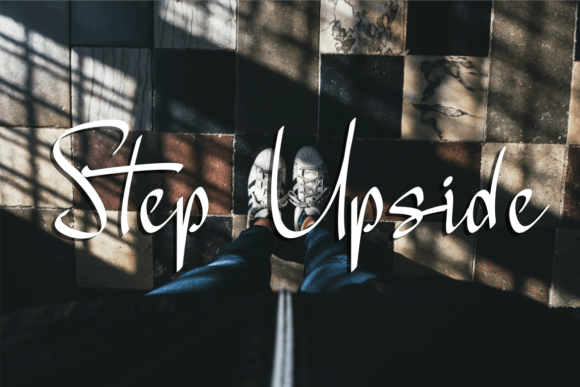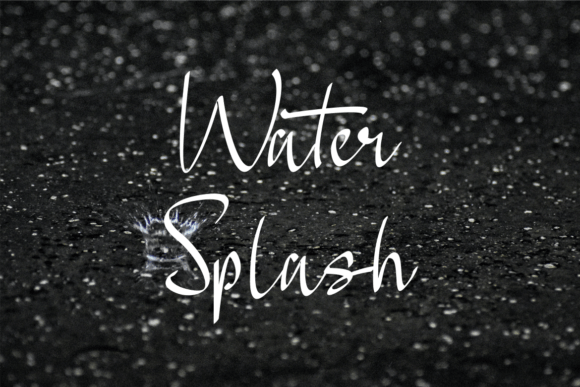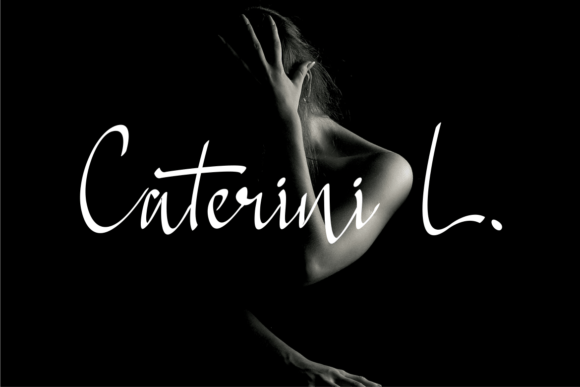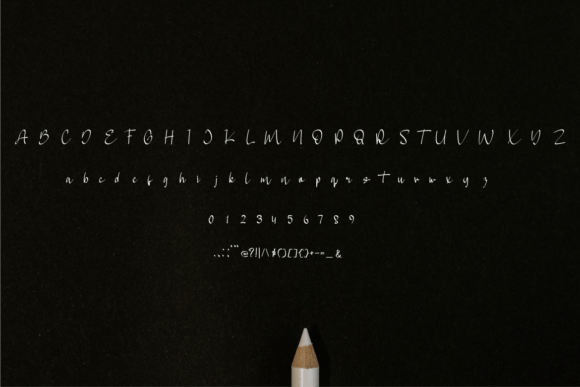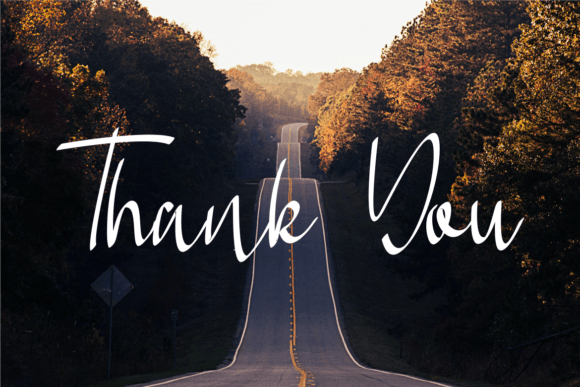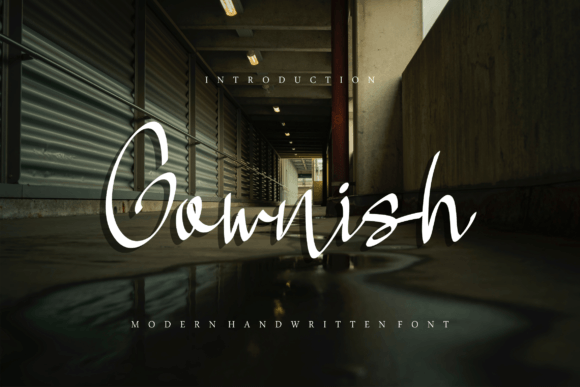
Gownish Font: Elevate Your Designs with a Cool and Modern Handwritten Signature Font
In the world of typography, a font can make or break a design. As a designer or crafty enthusiast, you’re constantly on the lookout for unique and versatile fonts to give your creations an edge. If you’re searching for a font that can elevate your designs and make them stand out, look no further than Gownish Font. In this article, we’ll dive into the features and benefits of Gownish, a cool and modern handwritten signature font that’s sure to become a valuable asset in your font library.
What is Gownish Font?
Gownish is a modern handwritten signature font that’s perfect for adding a personal touch to your designs. With its elegant and fluid strokes, Gownish exudes a sense of sophistication and style. Whether you’re working on a branding project, a wedding invitation, or a social media graphic, Gownish is the perfect choice for designers and crafters looking to add a touch of elegance to their work.
Key Features of Gownish Font
- Handwritten Signature Style: Gownish boasts a beautiful, handwritten signature style that’s perfect for creating unique and eye-catching designs.
- Modern and Cool: This font’s modern and cool vibe makes it ideal for a wide range of design projects, from fashion and beauty to lifestyle and entertainment.
- Highly Versatile: Gownish is incredibly versatile, making it suitable for use in various design contexts, including logos, headings, and body text.
- Elegant and Sophisticated: The font’s elegant and sophisticated feel makes it perfect for designs that require a touch of luxury and refinement.
Benefits of Using Gownish Font
So, why should you choose Gownish Font for your design projects? Here are just a few benefits of using this amazing font:
- Instantly Elevate Your Designs: With Gownish, you can instantly elevate your designs and give them a professional, polished look.
- Stand Out from the Crowd: This font’s unique and stylish design ensures that your creations will stand out from the crowd and grab attention.
- Save Time and Effort: Gownish is easy to use and works seamlessly with popular design software, saving you time and effort in the design process.
- Unlimited Creative Possibilities: With Gownish, the creative possibilities are endless. Use it to create stunning logos, beautiful wedding invitations, or engaging social media graphics.
Tips for Getting the Most Out of Gownish Font
- Experiment with Different Sizes and Colors: Try out different font sizes and colors to add visual interest and depth to your designs.
- Pair with Other Fonts: Combine Gownish with other fonts to create stunning contrast and visual hierarchy in your designs.
- Use in Combination with Images and Graphics: Use Gownish in combination with images and graphics to create visually appealing and engaging designs.
In conclusion, Gownish Font is a cool and modern handwritten signature font that’s perfect for designers and crafters looking to elevate their designs. With its elegant and sophisticated feel, Gownish is sure to become a valuable asset in your font library. Whether you’re working on a branding project, a wedding invitation, or a social media graphic, Gownish is the perfect choice for adding a touch of style and sophistication to your creations.